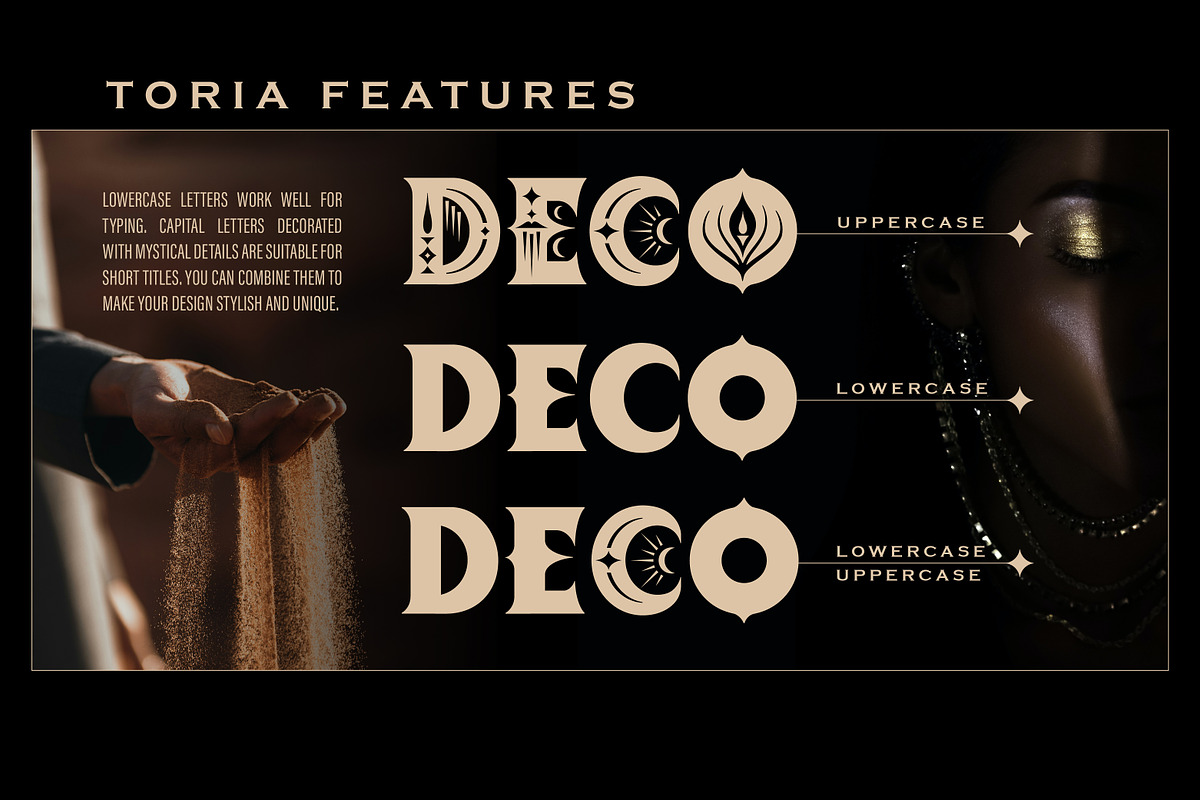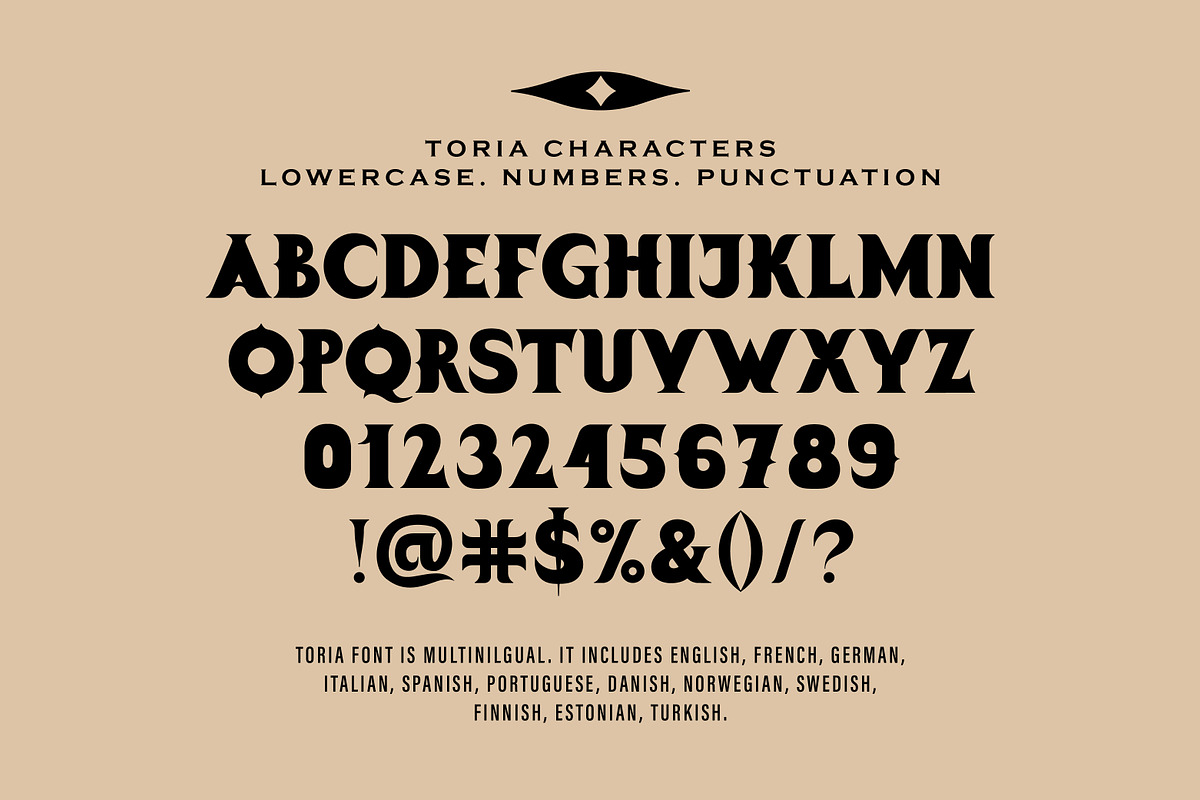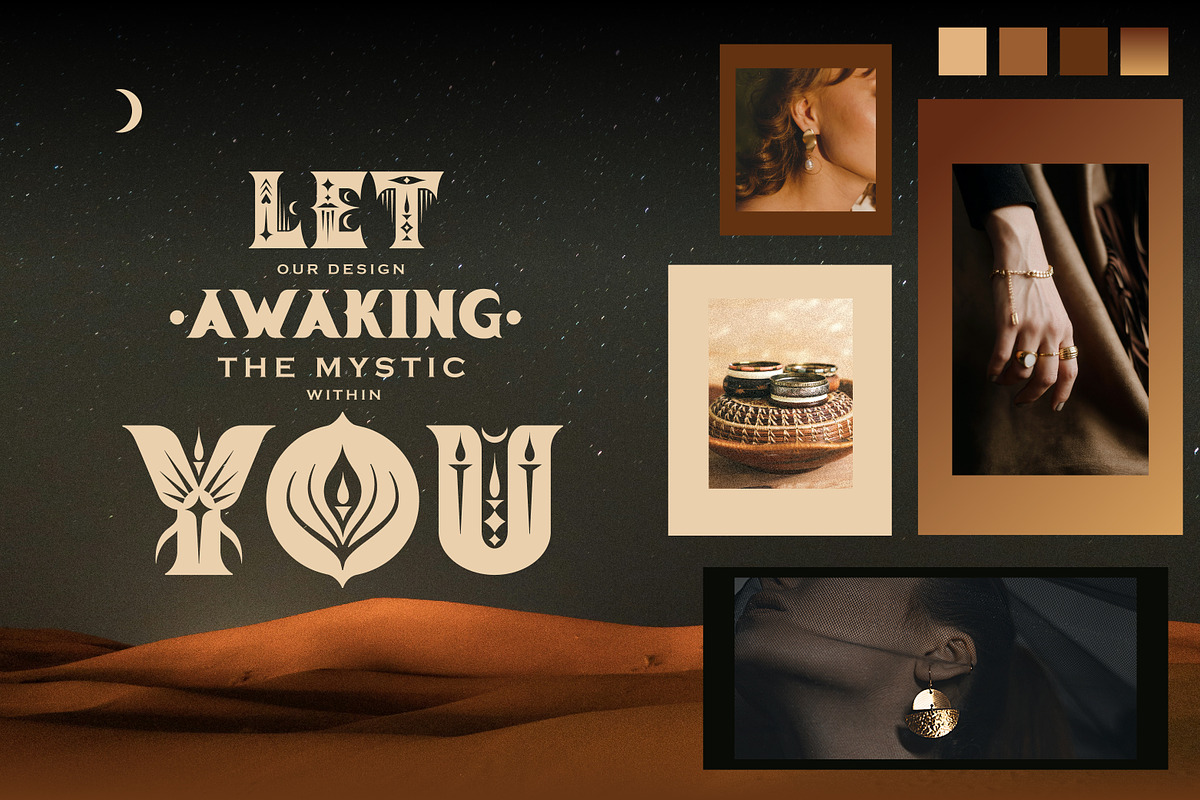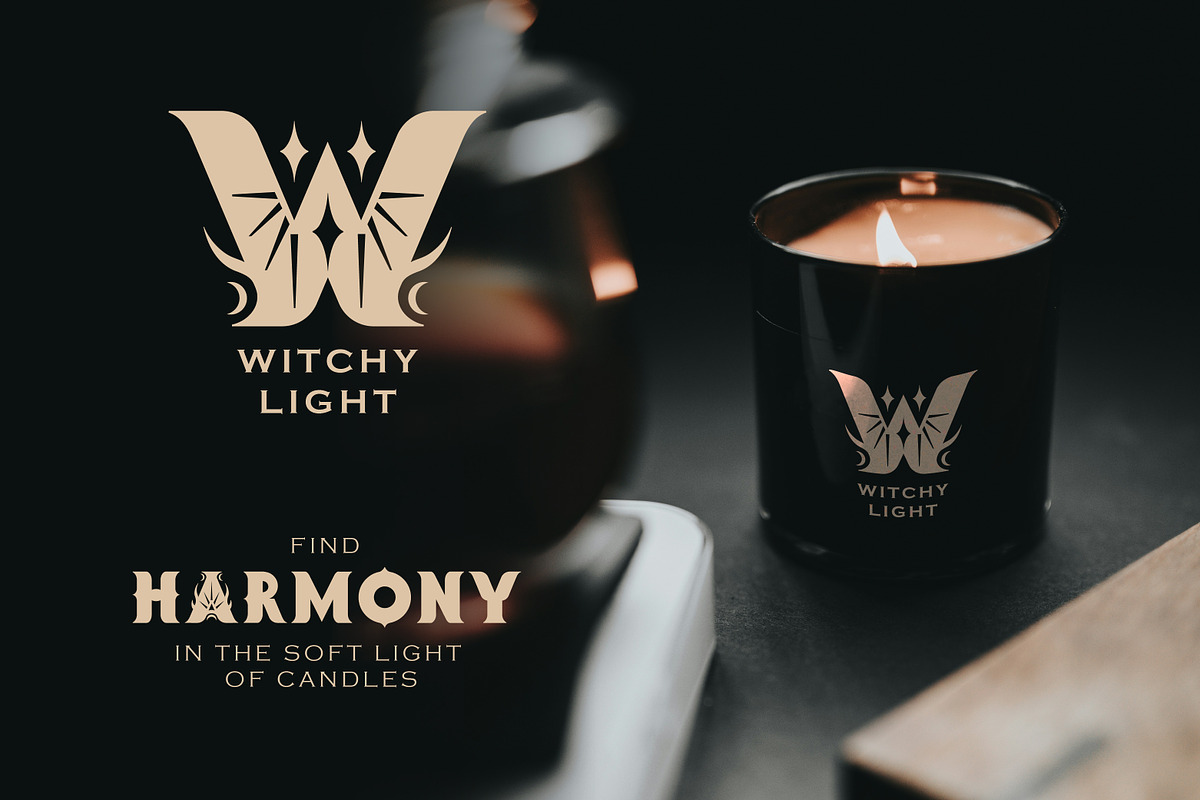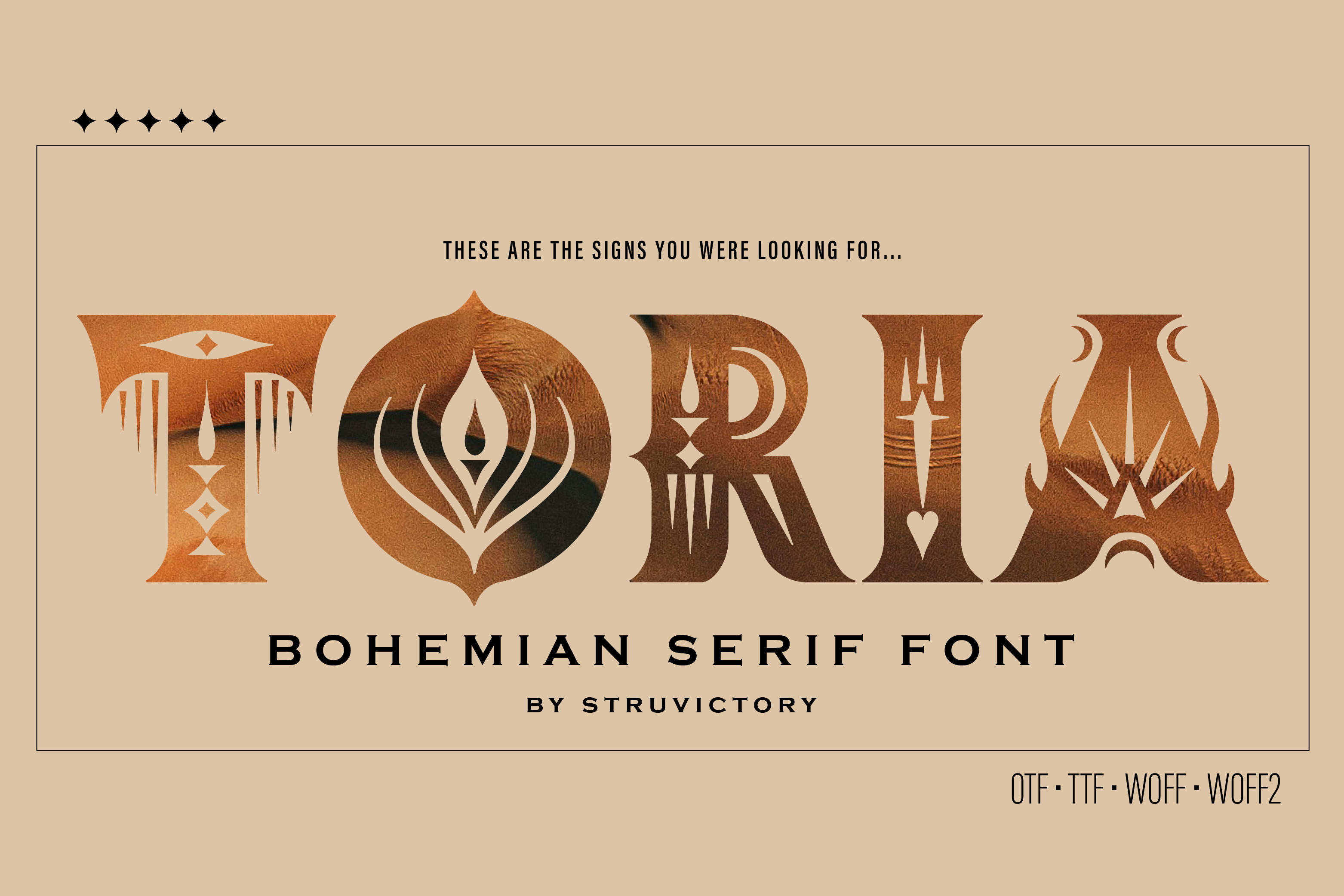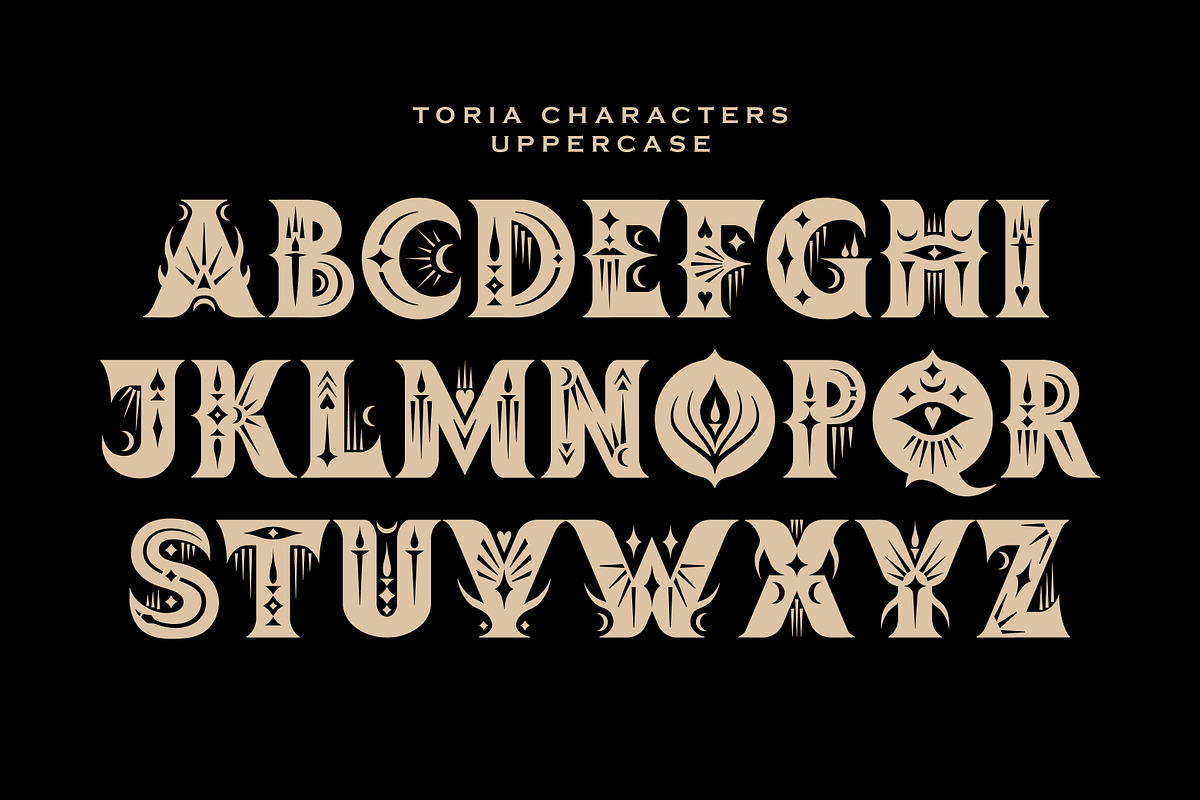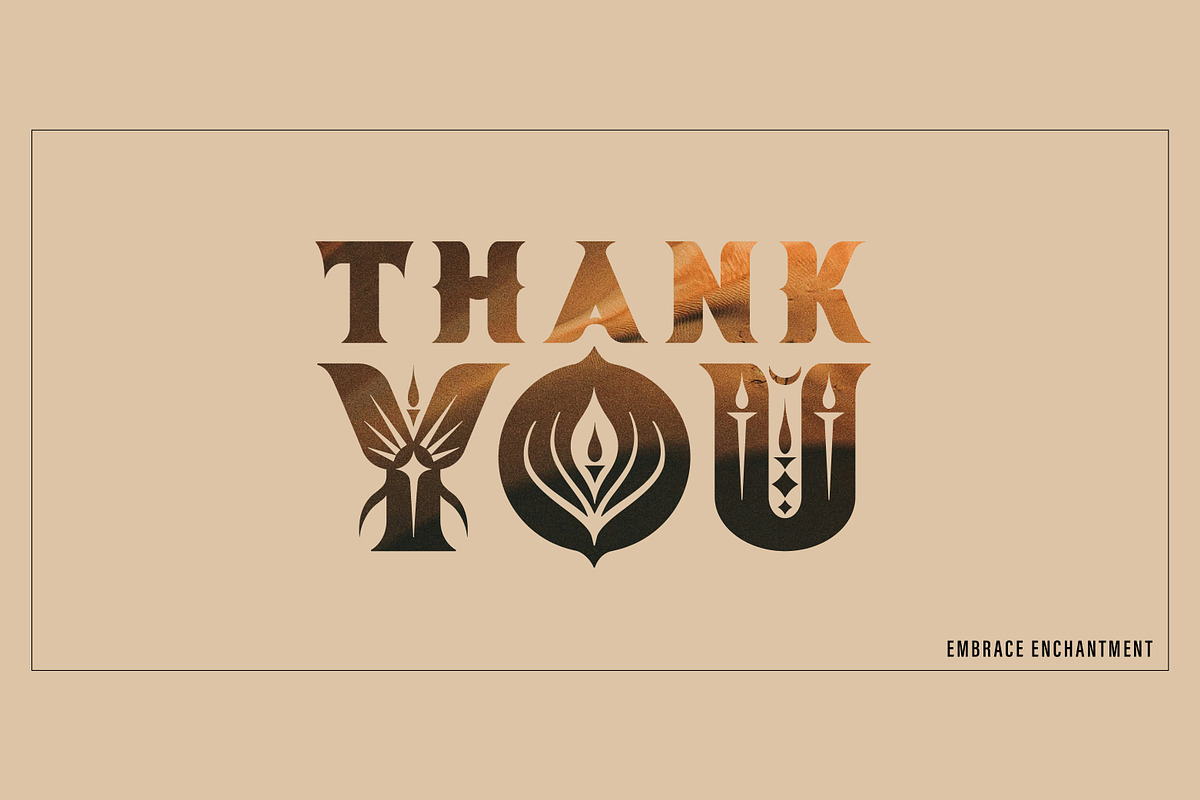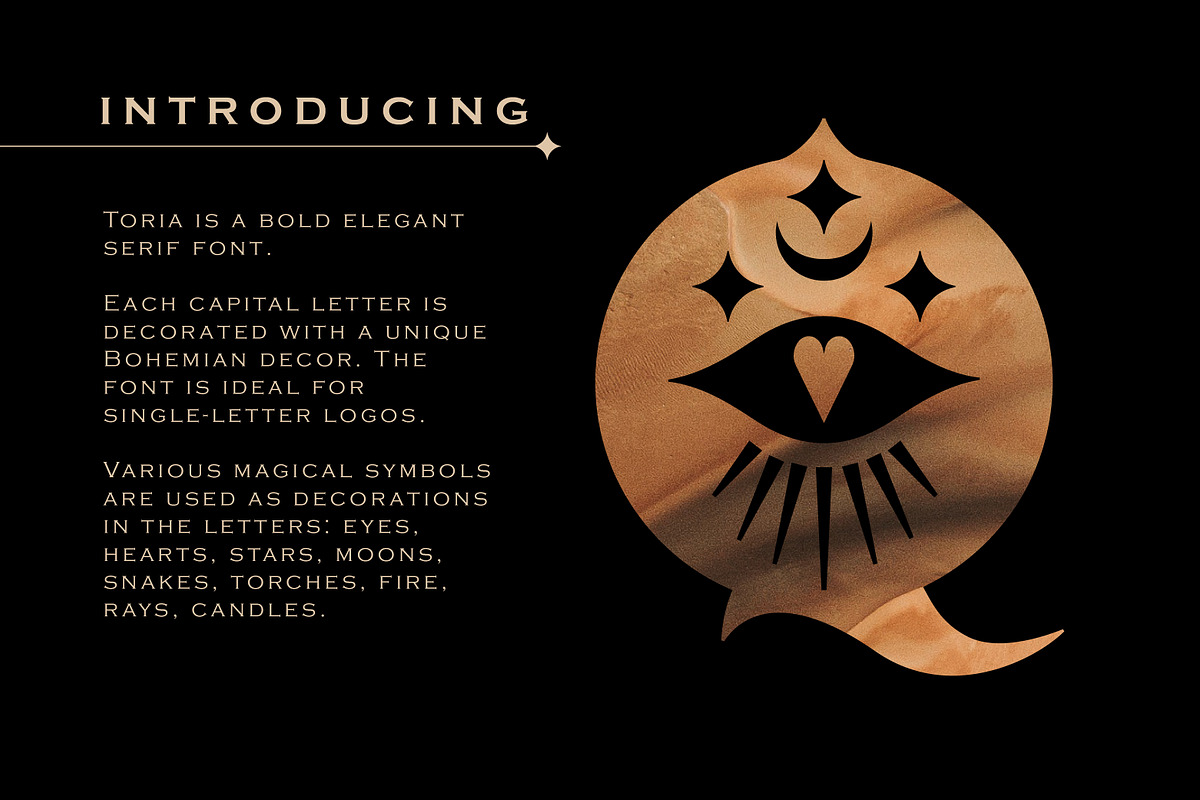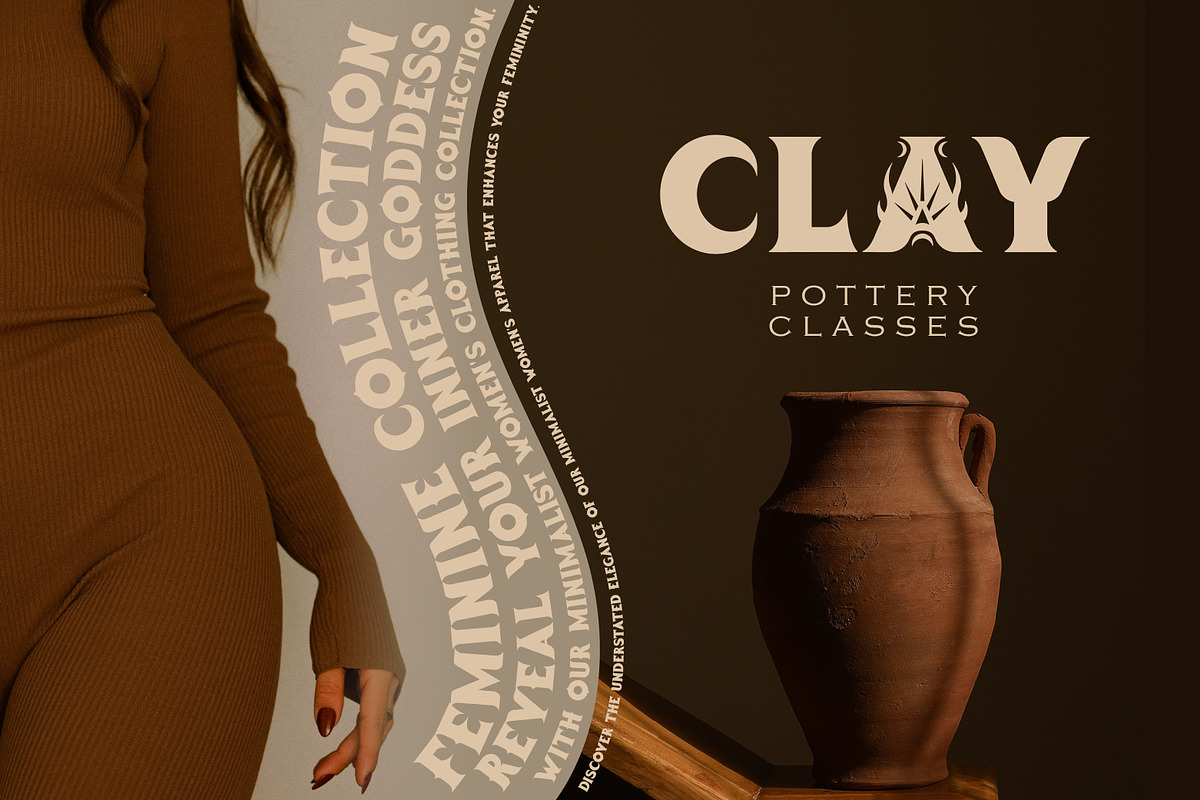
Toria Bohemian Decorative Serif Font
Welcome to TORIA - a modern serif font that unveils mystical essence in every character. Adorned with symbols like the moon, candle, serpent, sun, rays, torch, and eye, these letters not only invite you on a journey into the realm of esotericism but also offer a unique opportunity to use them as a logo for your brand. Allow Toria to be a source of inspiration and magic in each glyph, transforming your message into art.
TORIA is presented with a decorated uppercase and a bold lowercase. The font includes the most popular latin-based languages, you can check the symbol you need by typing a couple of words in the font preview box.